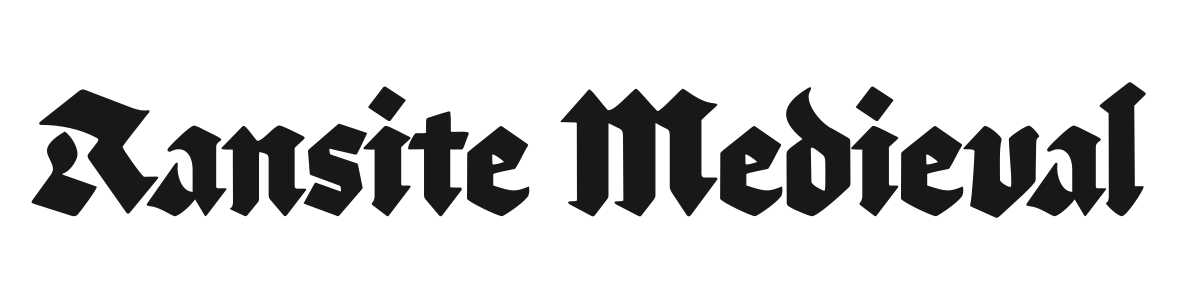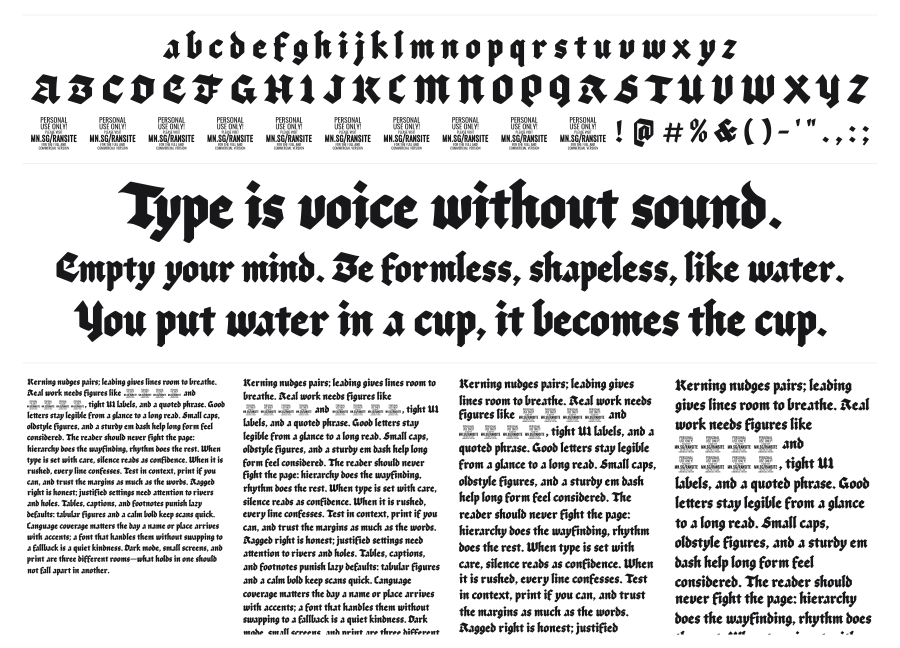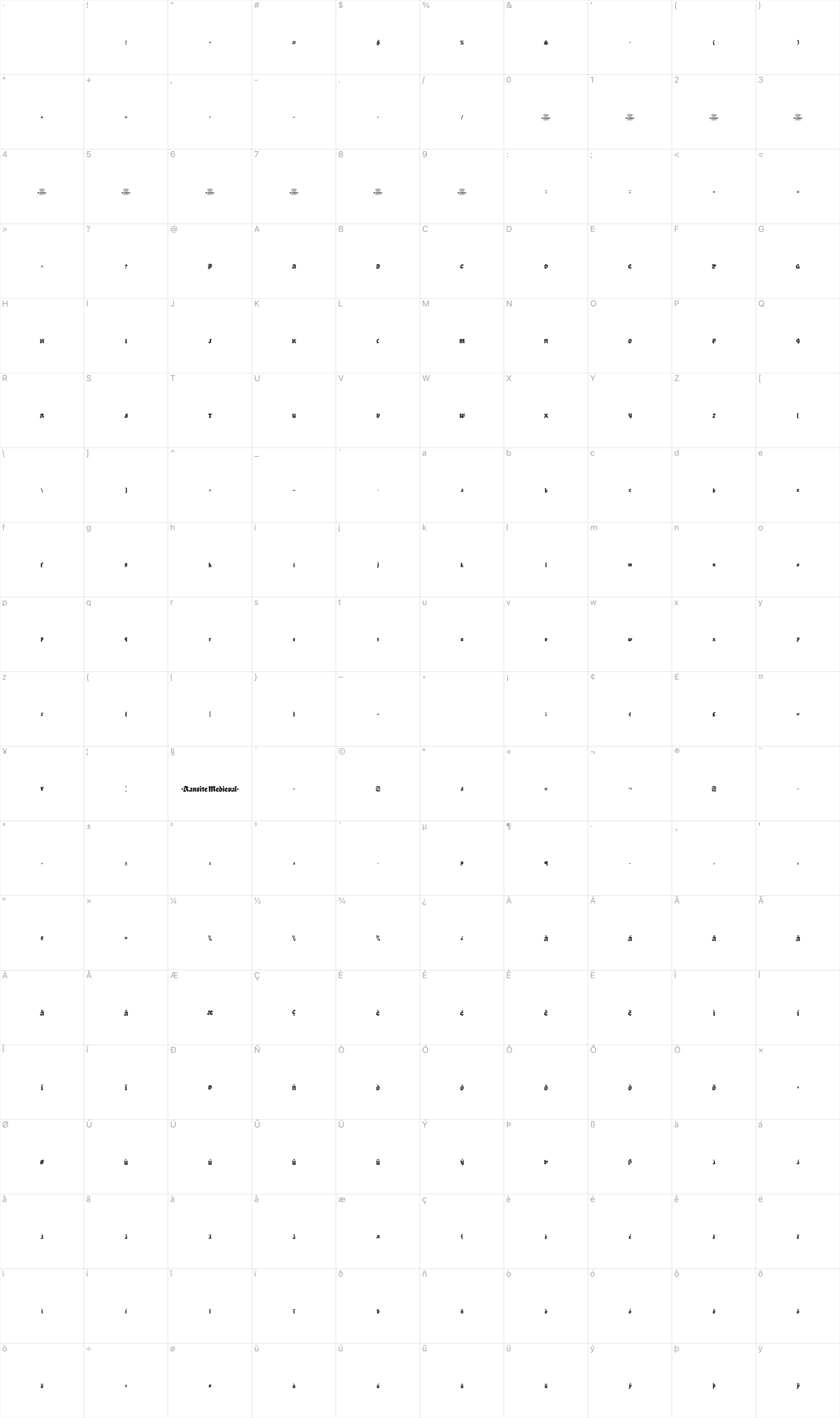
Ransite Medieval
Ransite Medieval is a bold Old English blackletter drawn from studies of historical manuscripts and typographic documents. Its heavy calligraphic strokes and sharp angular construction give it genuine medieval authority without sacrificing legibility. Designed by Mans Greback in 2022, it comes in four styles and covers all Latin-based languages.